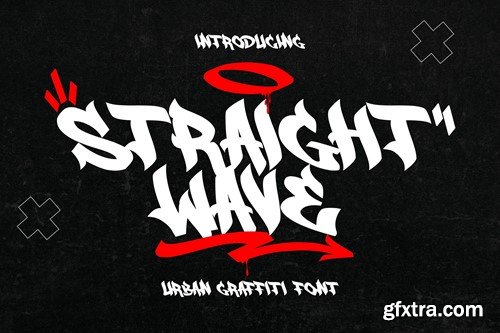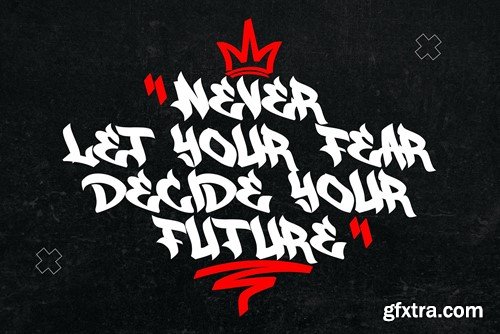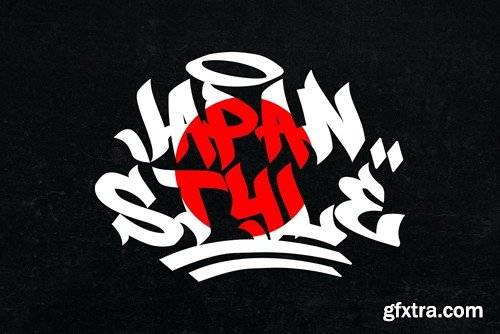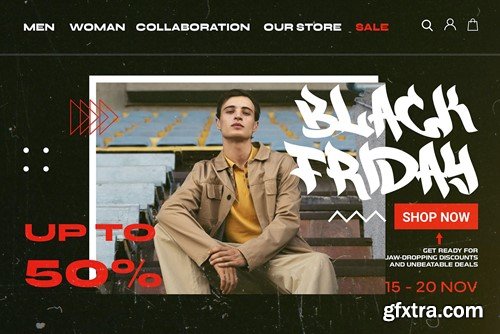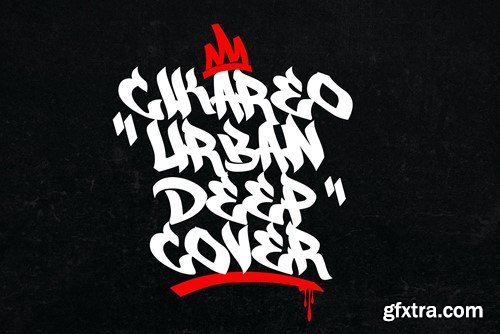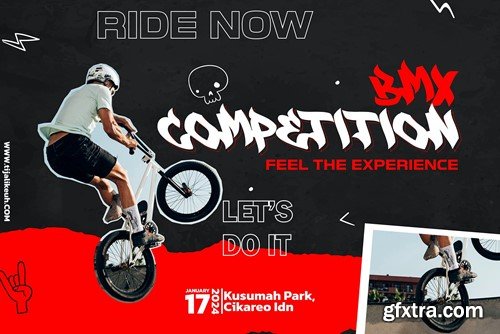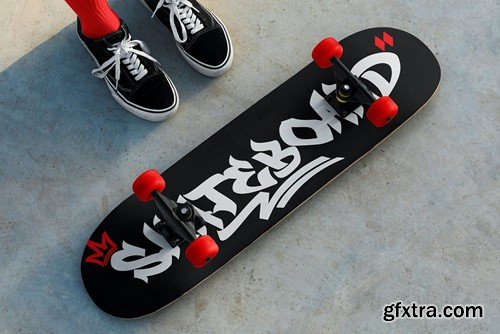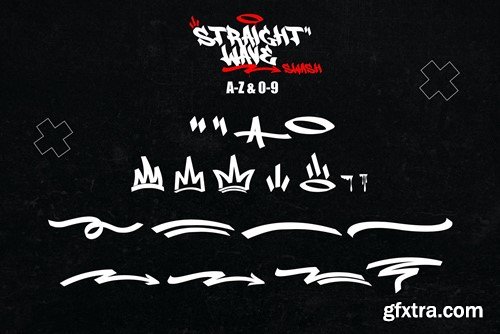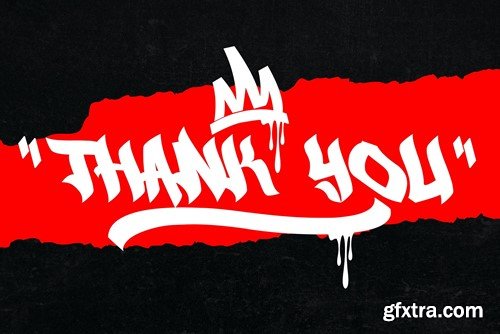
Straight Wave - 手写涂鸦字体 KV88BHY
Straight Wave - Handwritten Graffiti Font KV88BHY
Straight Wave - Handwritten Graffiti Font
Straight Wave is a graffiti font written manually in a monoline style, featuring characters inspired by natural handwriting. The font combines consistent line widths (monoline) with a graffiti-inspired impression in each letter. Its free-flowing yet consistently weighted lines offer an urban and authentic vibe. It's suitable for various designs that require a natural handwritten touch with a hint of graffiti influence.